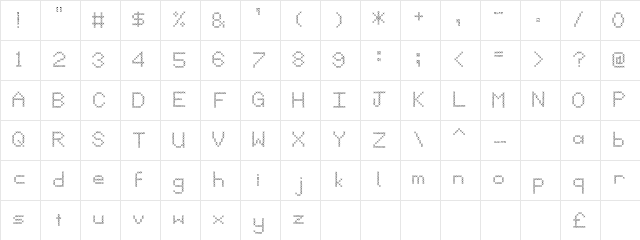
John 315 Regular
Design Context for John 315
John 315 is a composed and adaptable typeface that performs quietly and consistently across a wide range of design contexts.